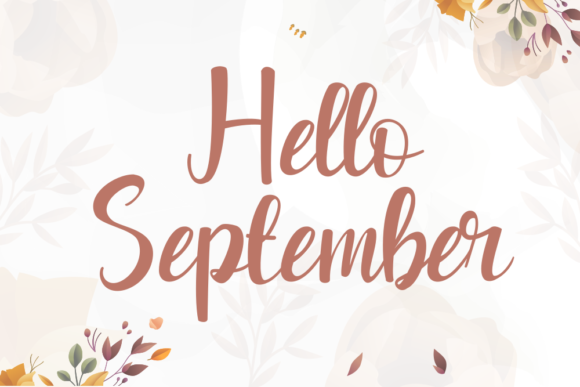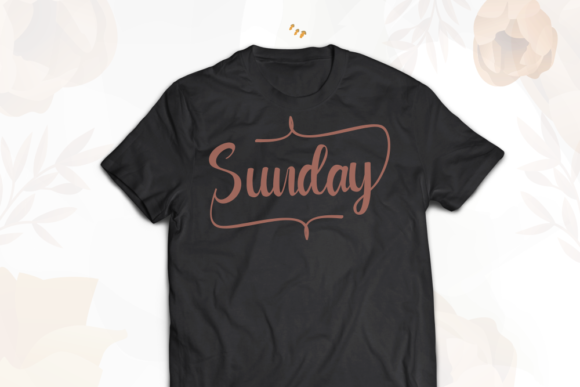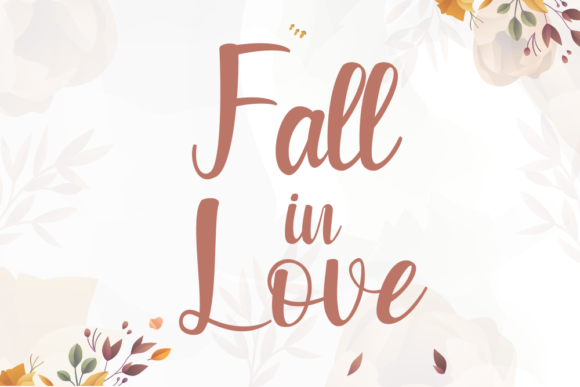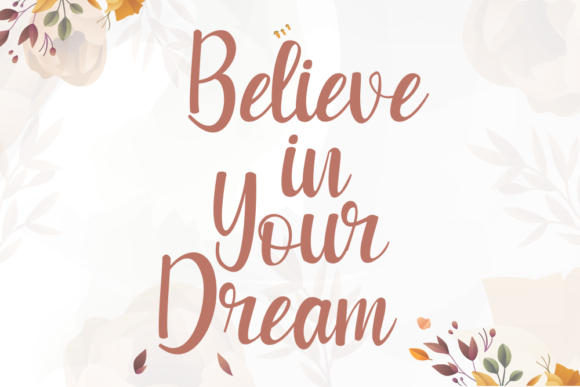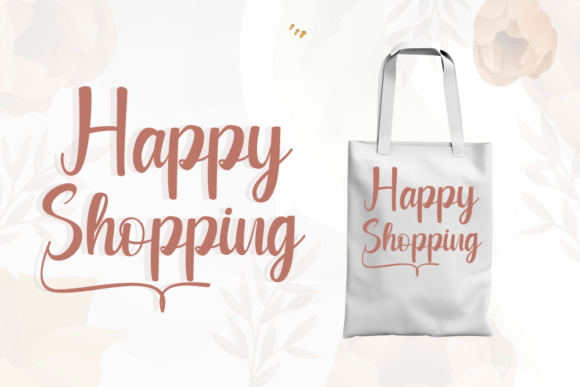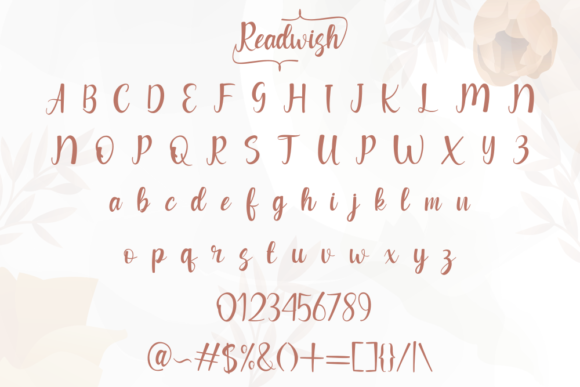
Introduction to Readwish Font
Have you ever been brainstorming ideas for a creative project and suddenly felt the urge to write down a quote, a heartfelt message, or a special invitation in a beautiful, handwritten style? For designers and artists, this moment is a thrilling opportunity to bring a personal touch to their work. And, for those seeking the perfect font to make their designs shine, we’re excited to introduce the Readwish Font.
This elegant and flowing font is a treasure trove for designers looking to add a high-quality, handwritten element to their projects. With its varying baseline, smooth lines, gorgeous glyphs, and stunning alternates, the Readwish Font is a design resource that will elevate any creative endeavor. Whether you’re working on a wedding invitation, a thank you card, or a logo, this font is sure to impress with its refined look and feel.
Key Features of Readwish Font
- High-quality font design with a transparent background, making it ideal for creative projects that require a subtle yet stylish look.
- Perfect for digital designers, graphic artists, and typographers seeking a unique design resource to elevate their creative project.
- Supports a wide range of resolutions and sizes, ensuring crisp and clear display across various devices and platforms.
- Designed to be highly legible and versatile, making it suitable for a variety of applications, from headings to body text.
- Includes a range of characters and glyphs, including international characters and symbols, to cater to diverse language needs.
Honest Review: Readwish Font
I recently had the chance to work with the Readwish Font, and I must say it’s been a great addition to my design resource library. As a designer, I’m always on the lookout for high-quality fonts that can elevate my creative projects.
What works well about the Readwish Font is its clean and modern aesthetic, making it perfect for a variety of design applications. The font’s transparent background also allows for easy layering and customization. The free download option is also a major plus, as it opens up possibilities for designers on a budget.
- ✨ High-quality design with a modern aesthetic
- ✨ Transparent background for easy layering and customization
Overall, I’m impressed with the Readwish Font and would recommend it to designers working on creative projects. While it may have some limitations, its high-quality design and free download option make it a valuable addition to any design resource library.
The Readwish Font is a high-quality design resource ideal for creative projects that require a touch of elegance and sophistication. With its transparent background and crisp typography, this font is perfect for designers looking to add a unique touch to their work.
Tips for Getting the Most Out of Readwish Font
To get the most out of the Readwish Font, experiment with different font sizes, colors, and combinations. This font is versatile and can be used in a variety of creative ways.
The Readwish Font is ideal for a range of creative projects, including:
Branding and marketing materials
Editorial and publishing projects
Any project that requires a touch of sophistication and elegance
Yes, the Readwish Font features a transparent background, allowing you to easily overlay it on various backgrounds, including images and videos. This makes it perfect for creative projects that require a high level of design flexibility.
Q: Can I customize the Readwish Font to suit my specific design needs?